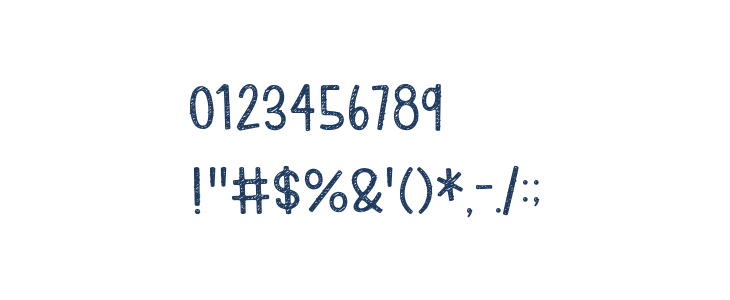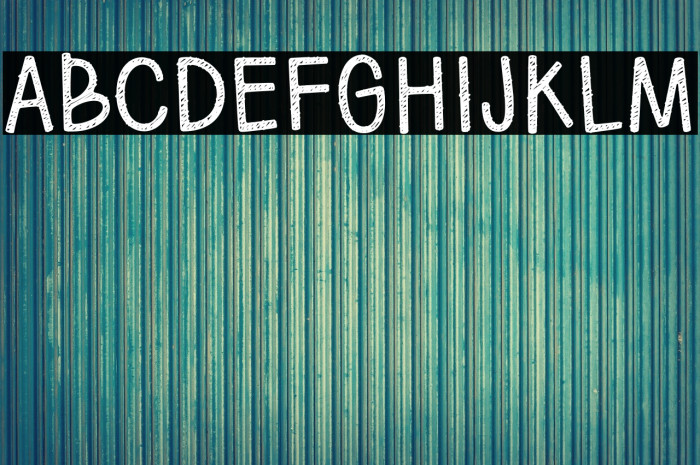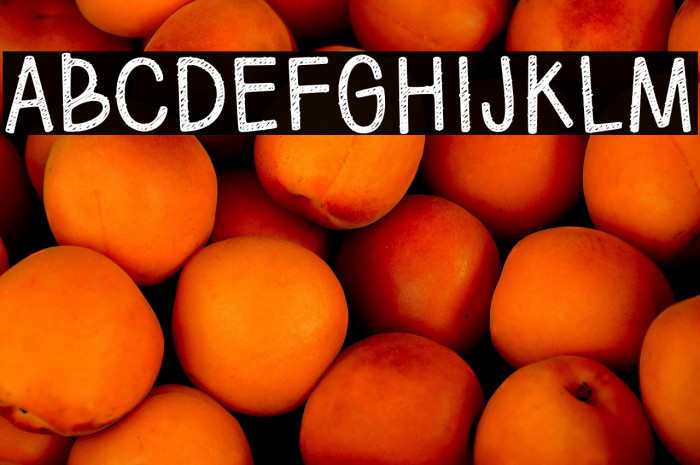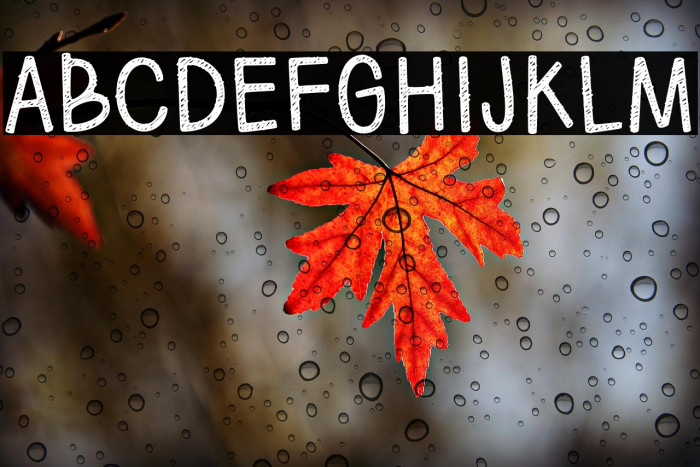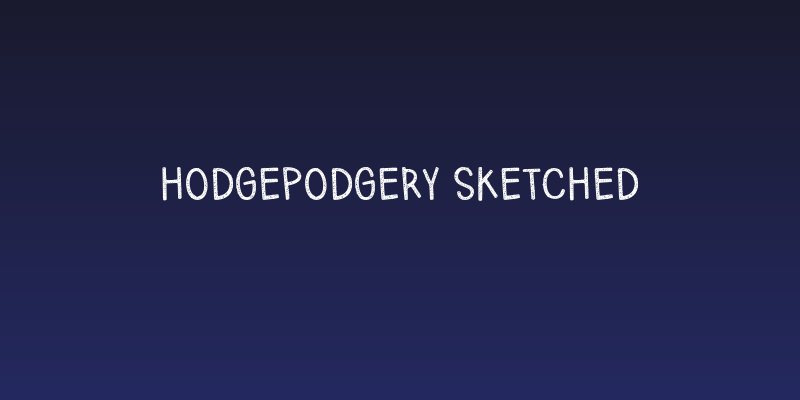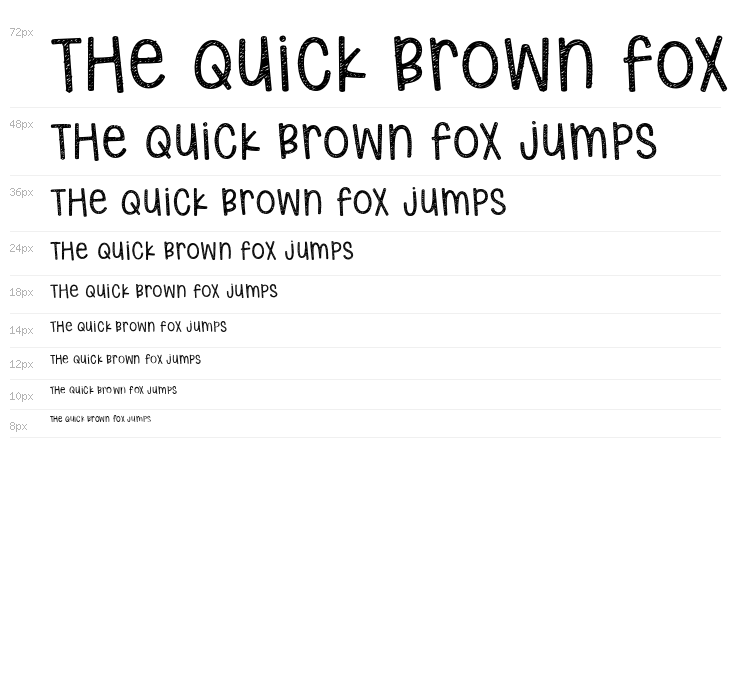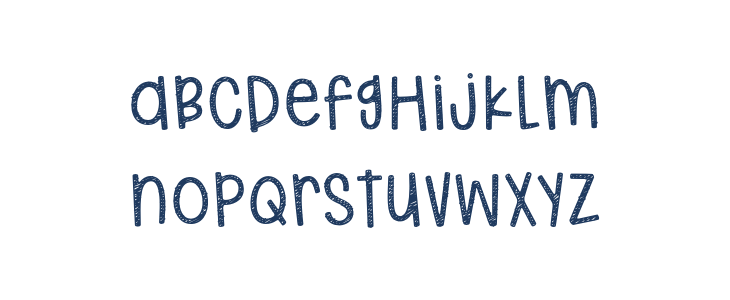
Hodgepodgery Sketched Font
Hodgepodgery Sketched Description
This font features a playful and whimsical design, characterized by its hand-drawn, sketched appearance. The letters have a casual, informal style with uneven lines and a textured fill that gives them a unique, artistic look. The uppercase and lowercase letters maintain a consistent style, with rounded edges and a slightly irregular shape that adds to the font's charm. Numbers and special characters are included, following the same sketched aesthetic. This font is perfect for projects that require a fun and creative touch, such as children's books, greeting cards, or playful branding.
Overall StyleWhimsical, Artistic, Playful
Use CaseHeadlines, Logos, Creative projects
Proposed ProjectsIdeal for children's books, greeting cards, playful branding, and creative projects.